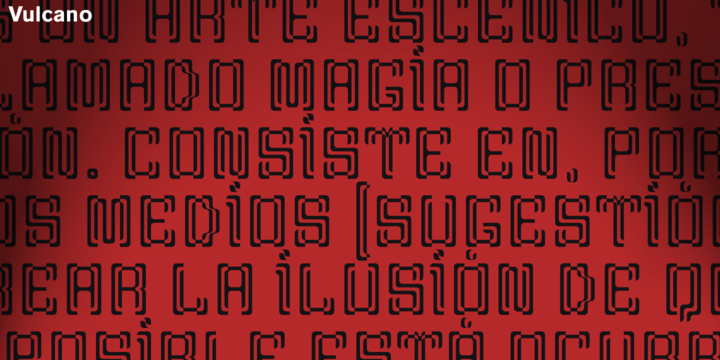
Vulcano is the mesmerising creation of Salvador –Tori– Alimbau, the one-type-man who gave us this maze. José Manuel Urós took months to devise a negative-positive system for these characters. Hypnotic, charming sophisticated.